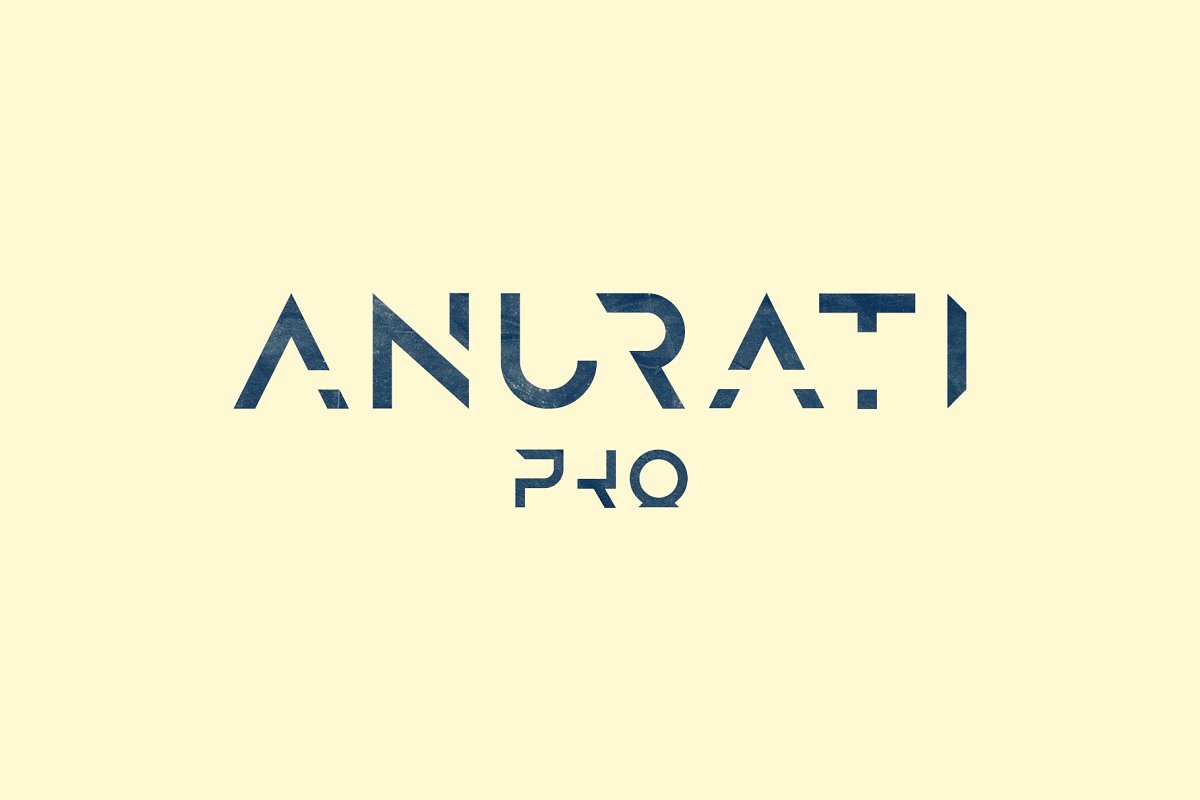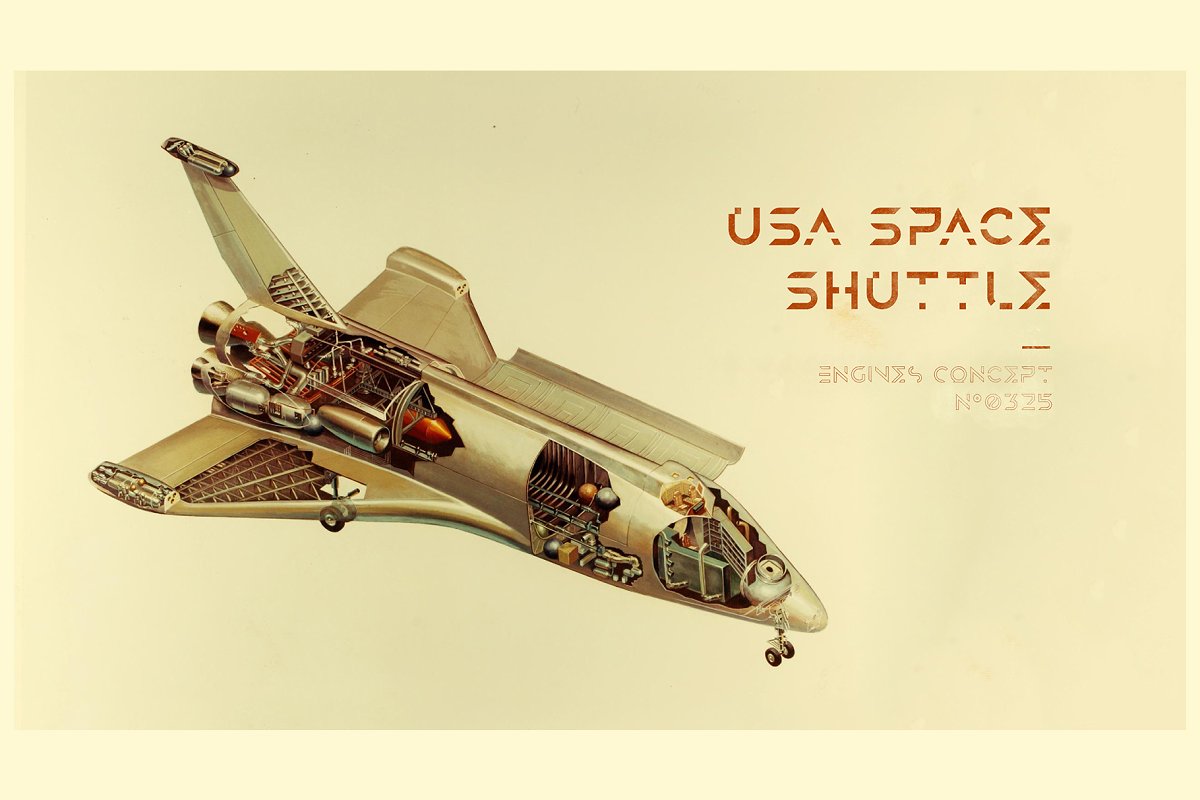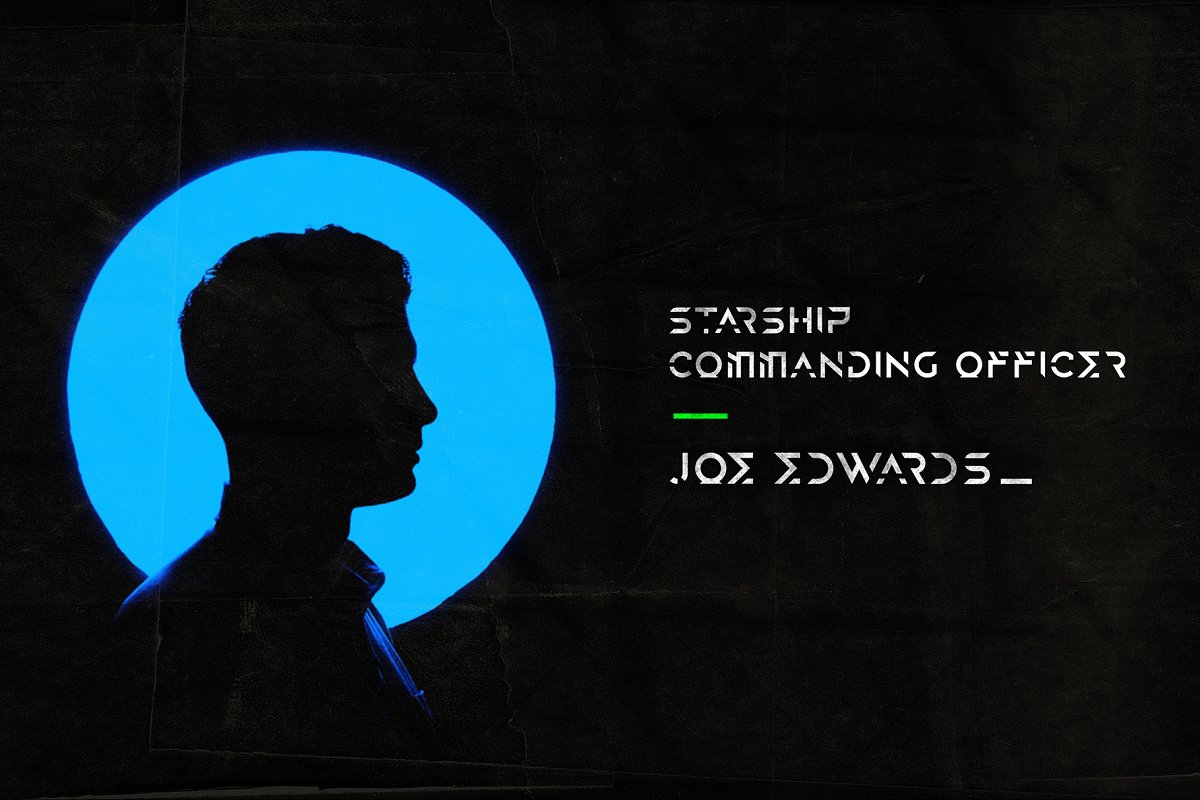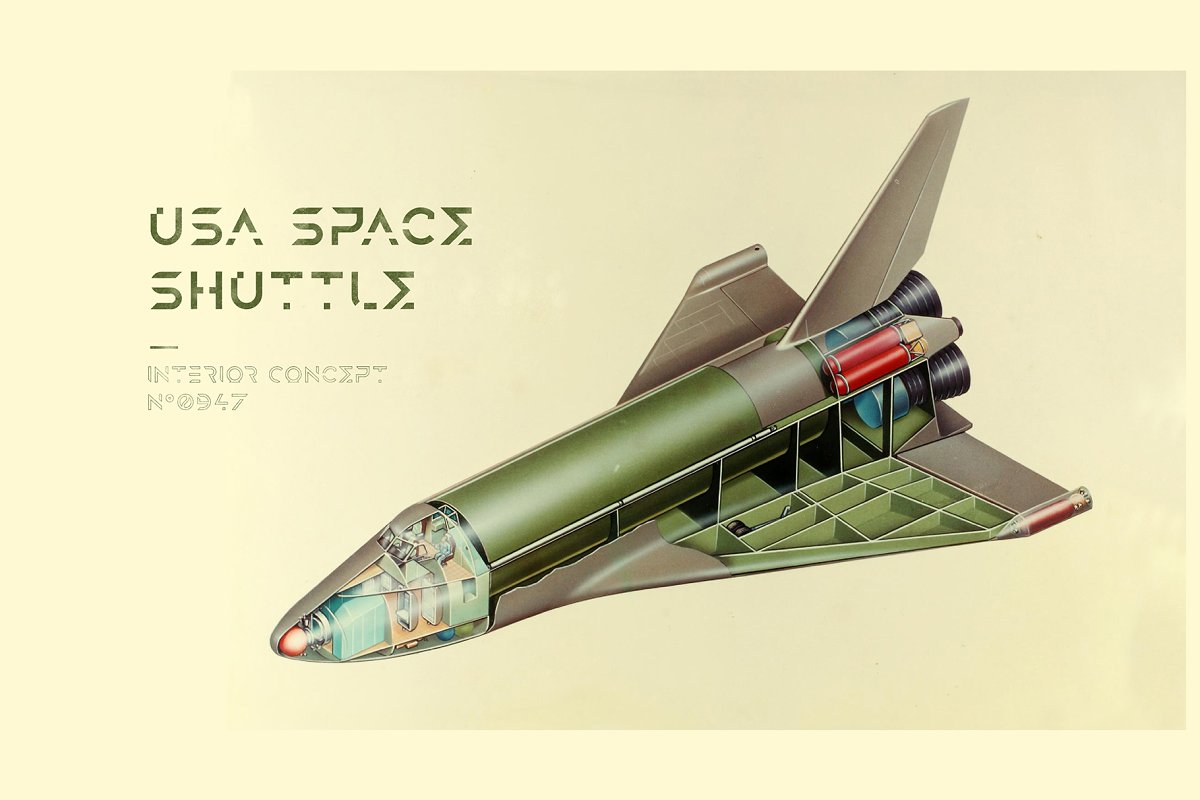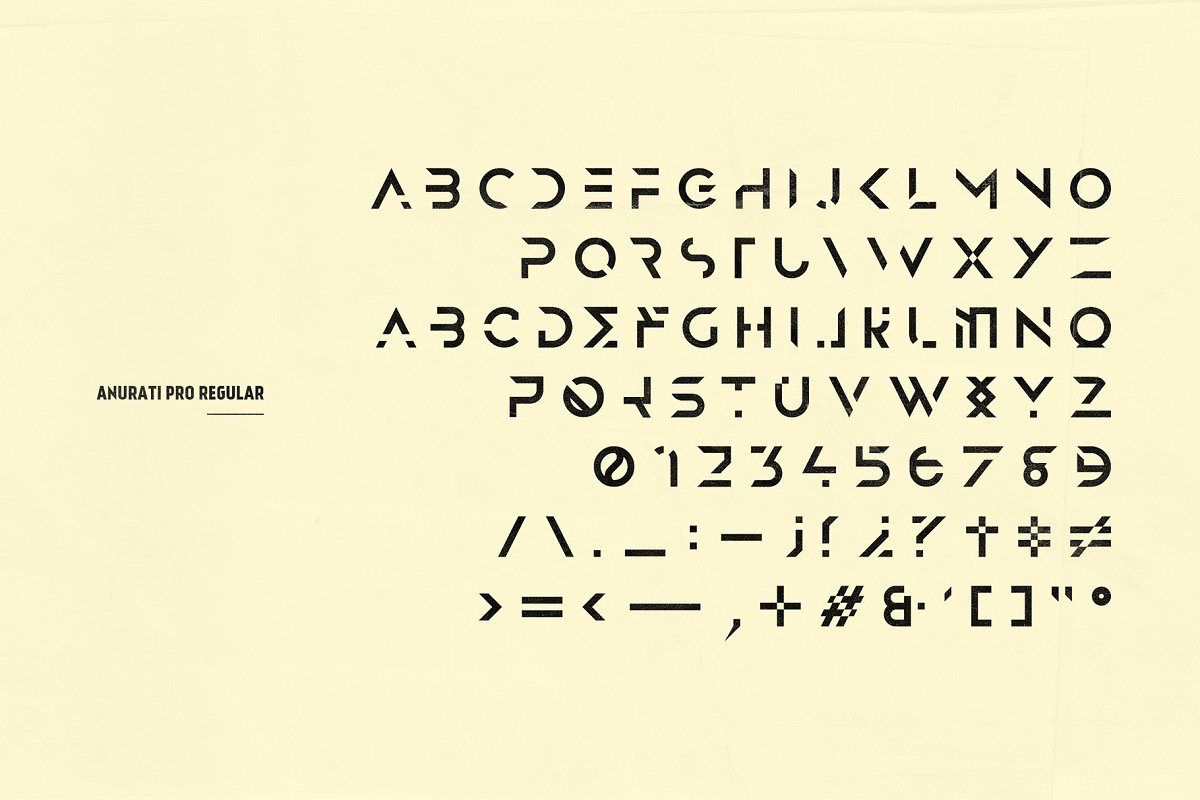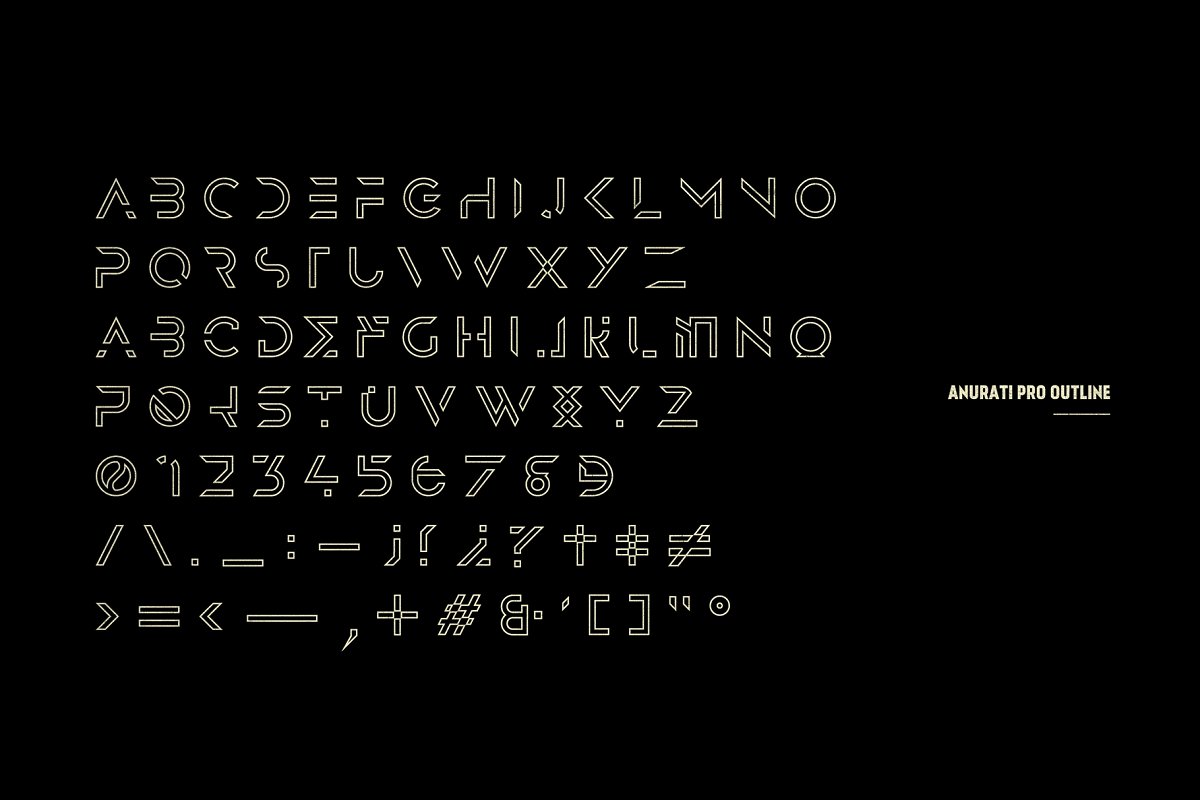
About the Anurati Pro typeface weights Font
ANURATI PRO is the improved version of the previously known ANURATI FONT, It comes with a whole new set of letters & glyphs, all kerned with love, The font features 2 weights : Regular & Outline, All caps, ANURATI PRO offers a futuristic design approach and a sharp personality, Crafted & designed by Emmeran Richard, Perfect for:Headlines, Titles, Captions,Logos, Games, Apps,Movies, Posters,T-shirts,